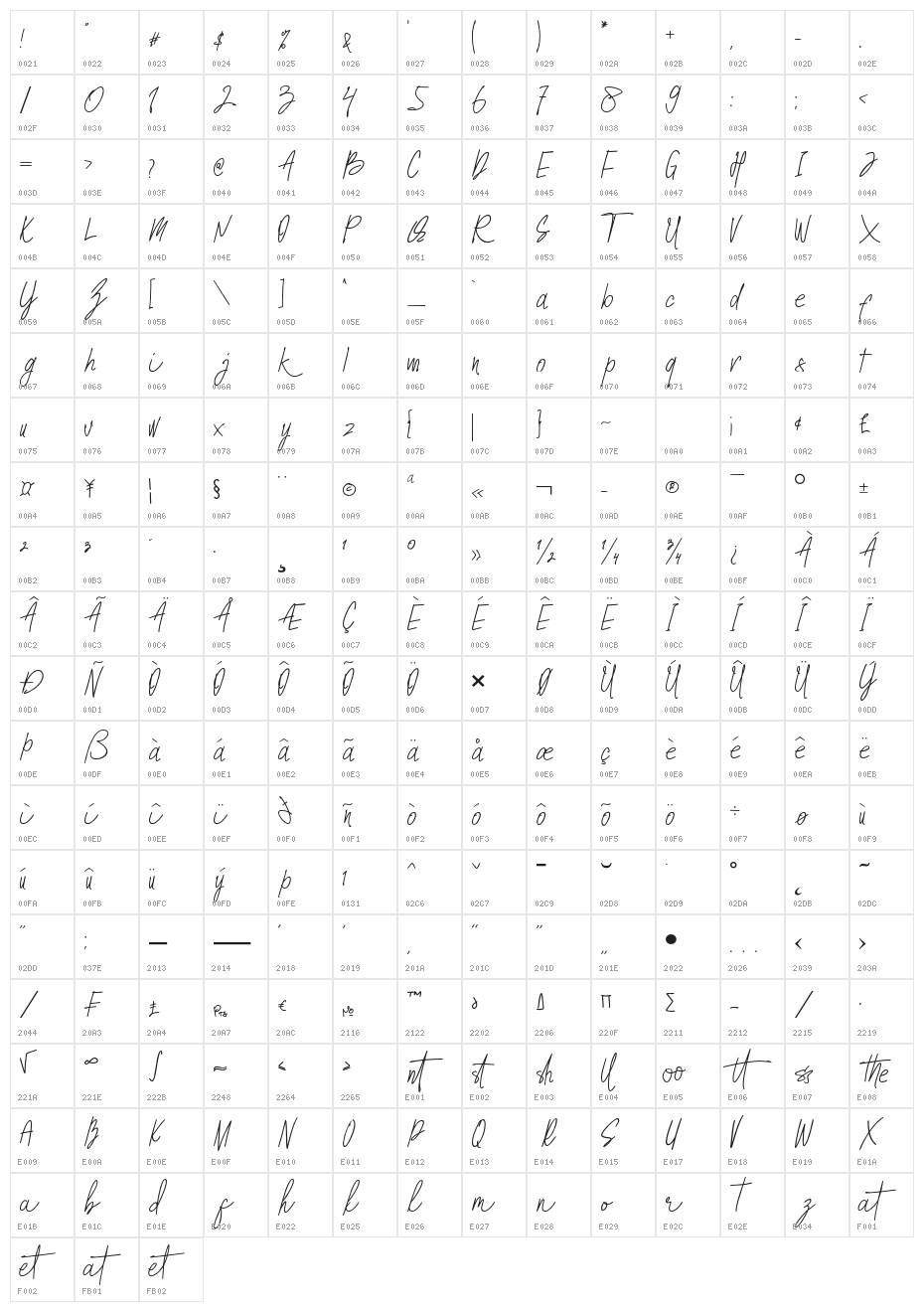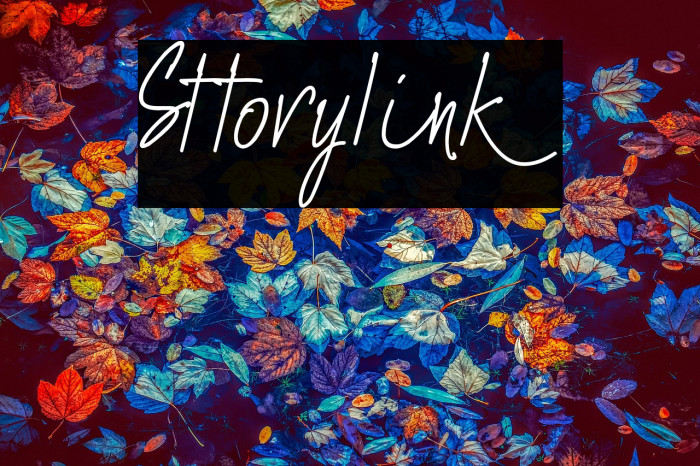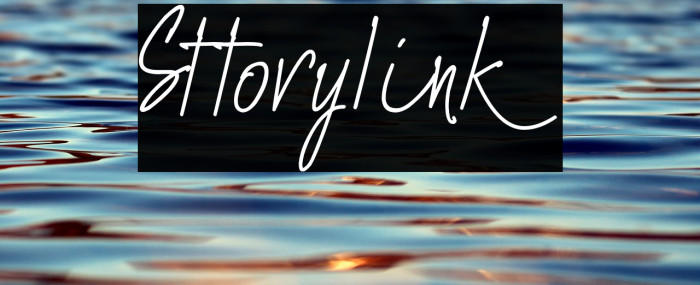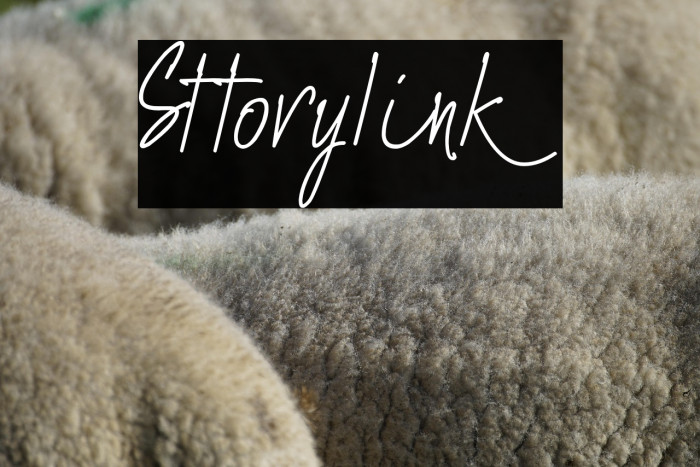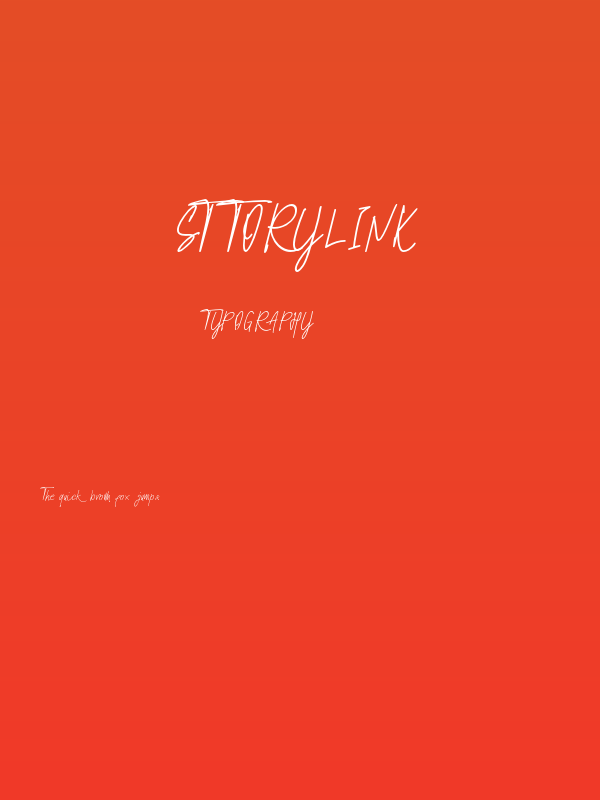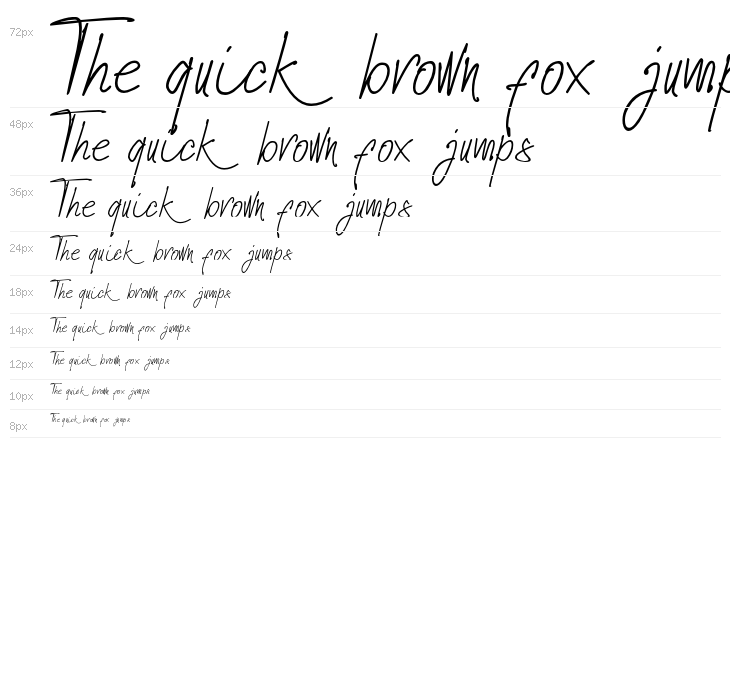
Sttorylink Font
Sttorylink Description
This font features a dynamic and expressive handwritten style, characterized by its fluid and cursive letterforms. The strokes are smooth and flowing, with a natural rhythm that mimics the motion of a pen on paper. The uppercase letters are bold and slightly larger, while the lowercase letters maintain a consistent size, creating a harmonious balance. The numerals and special characters are crafted with the same attention to detail, ensuring a cohesive look across all elements. This font exudes a sense of creativity and personal touch, making it ideal for projects that require a personal or artistic flair.